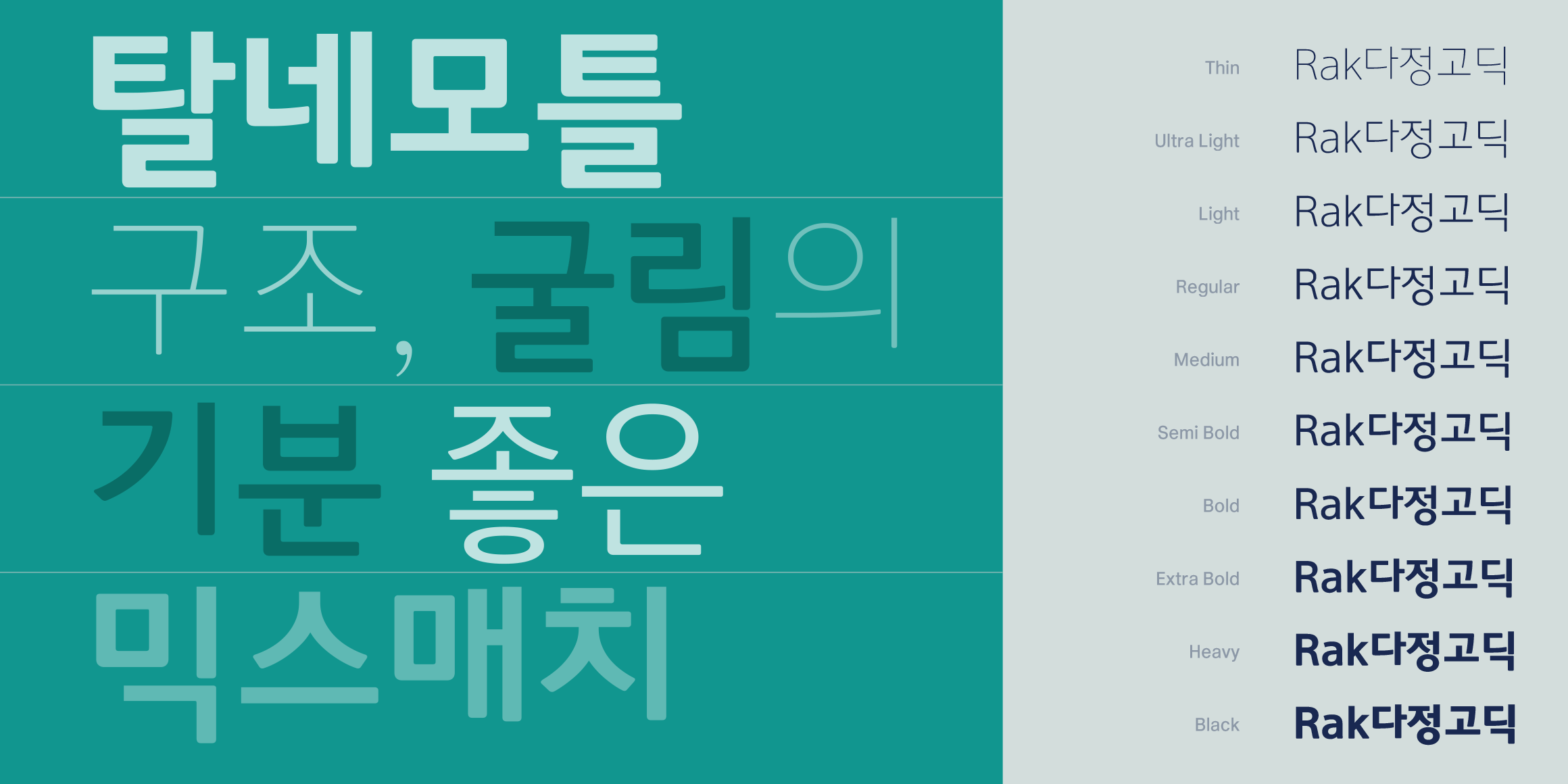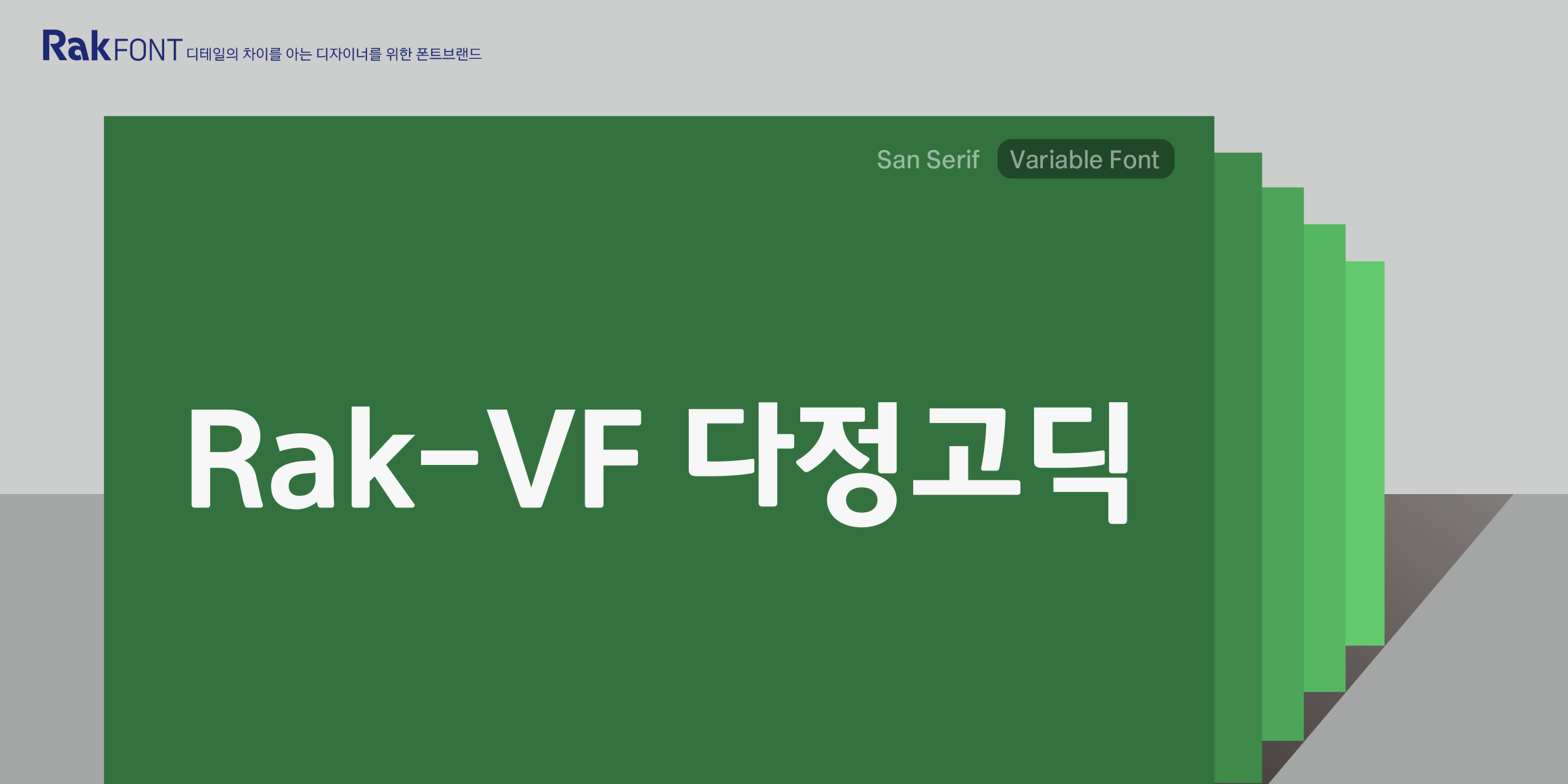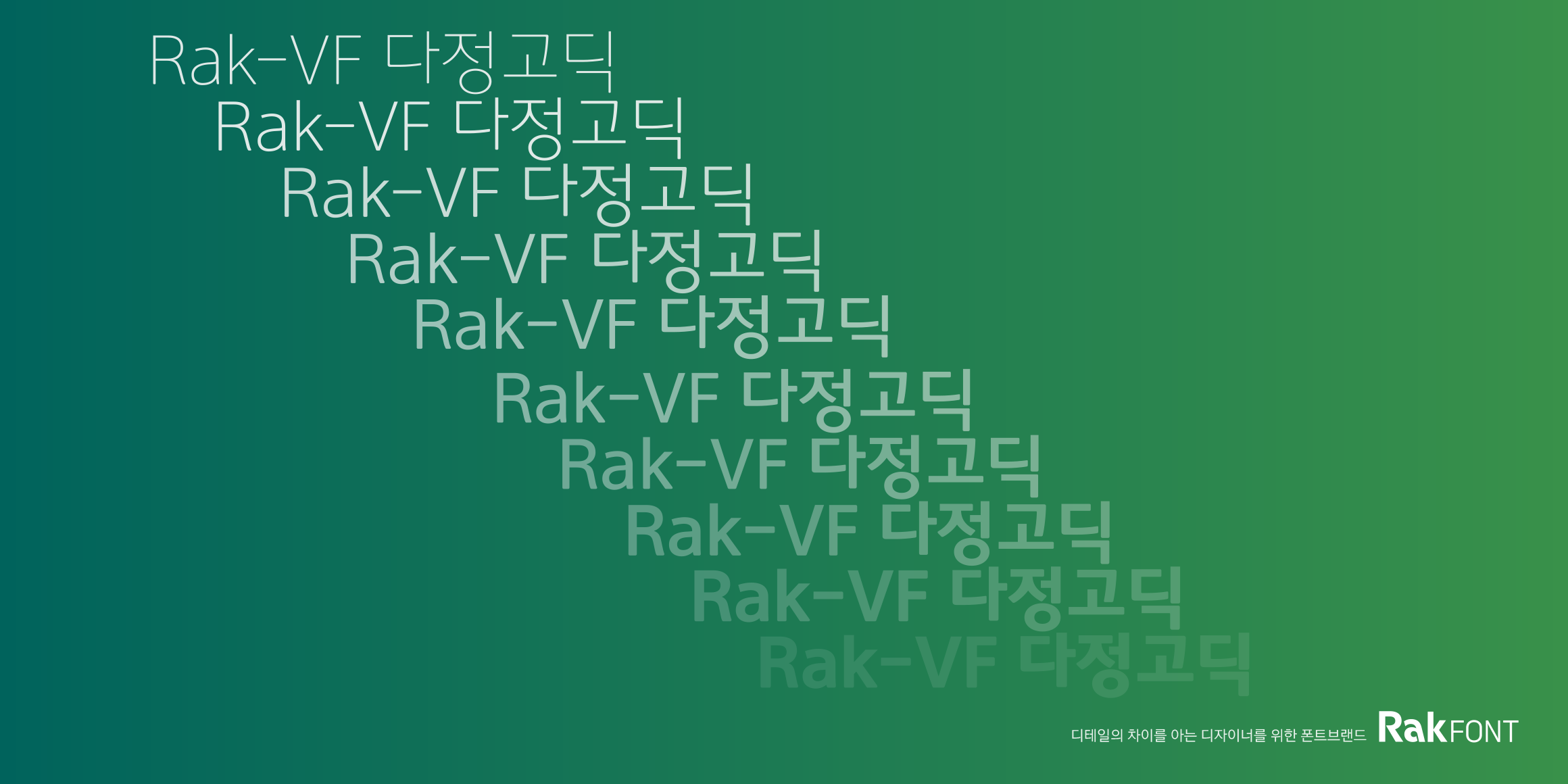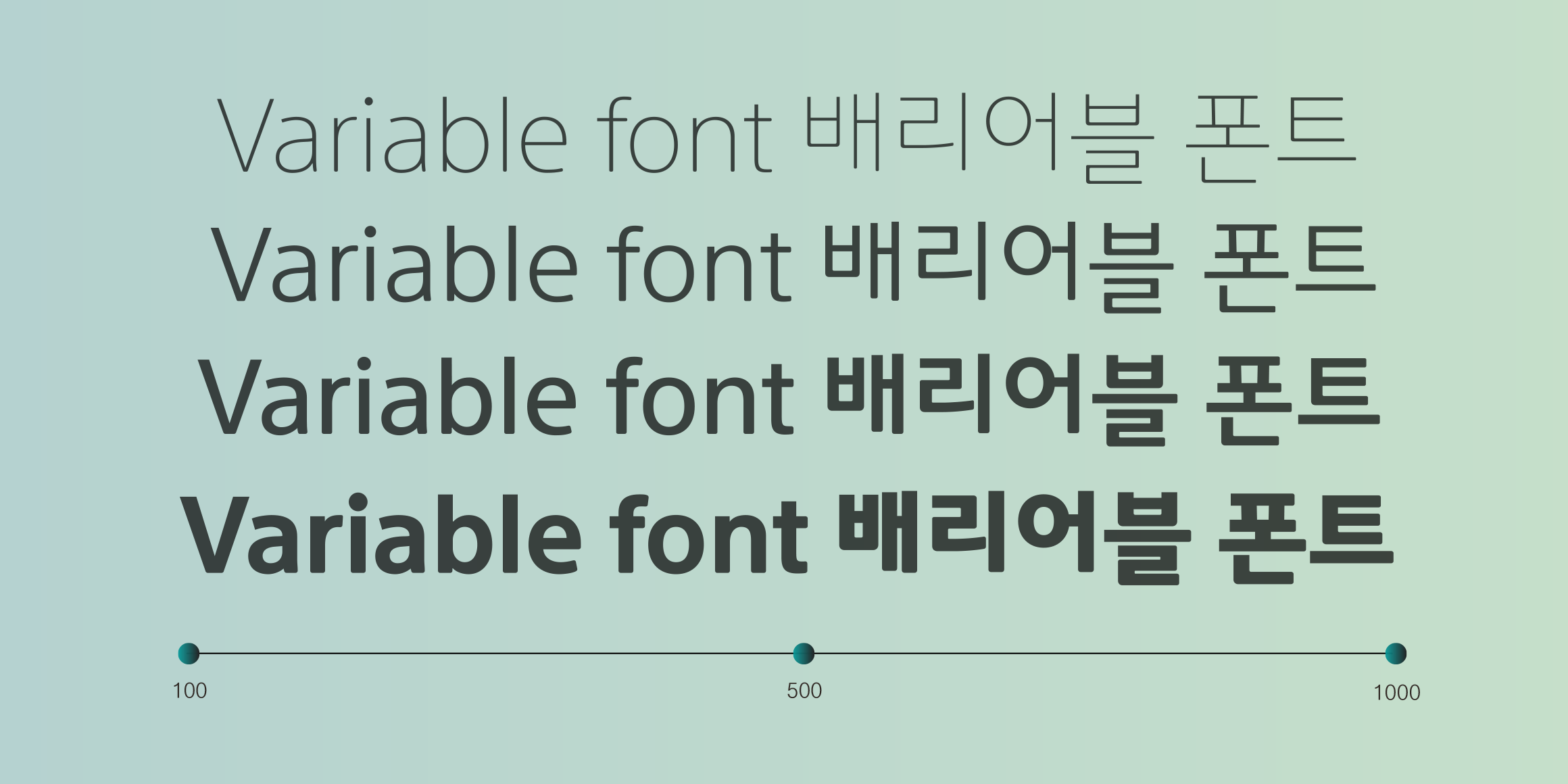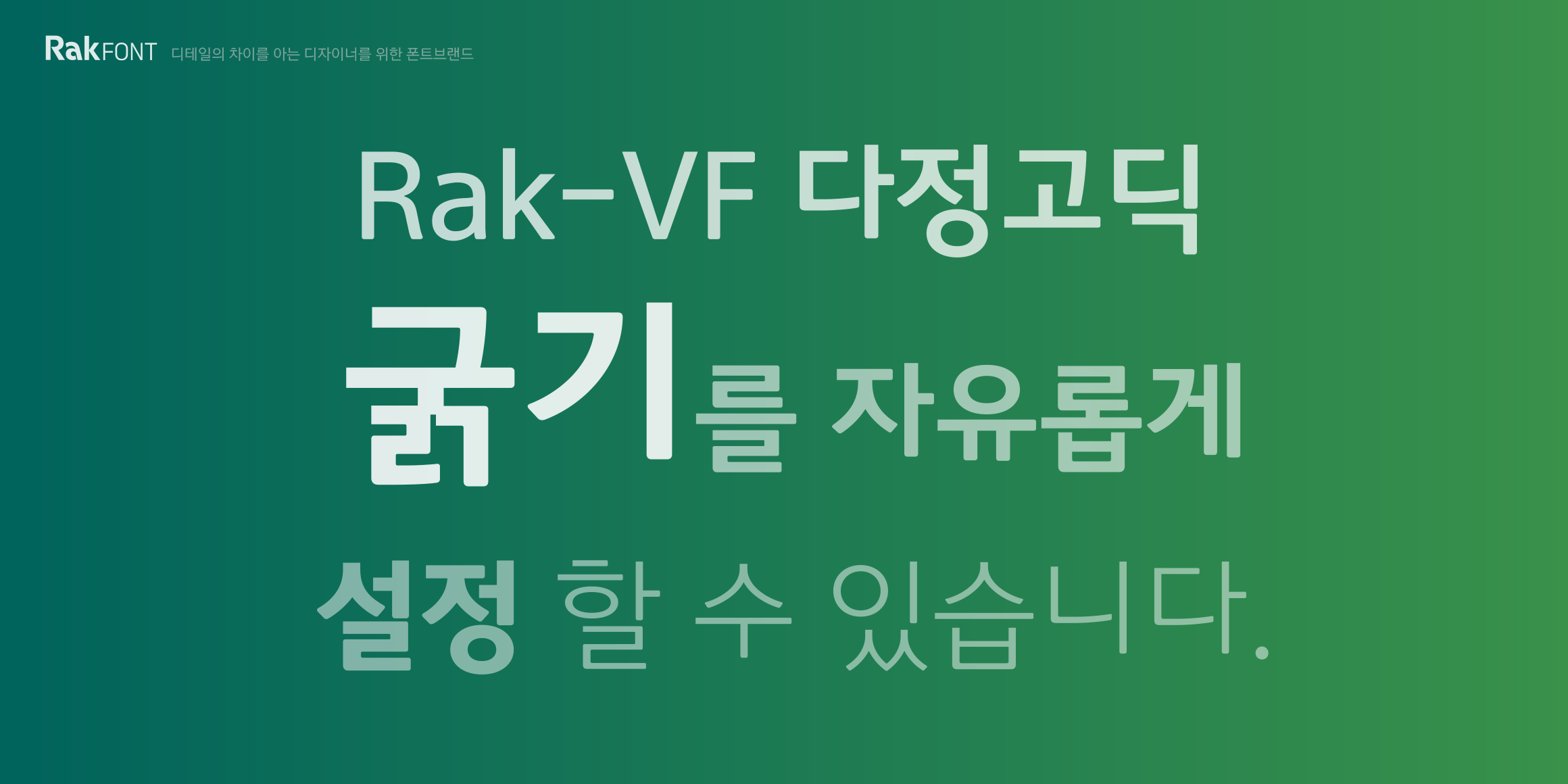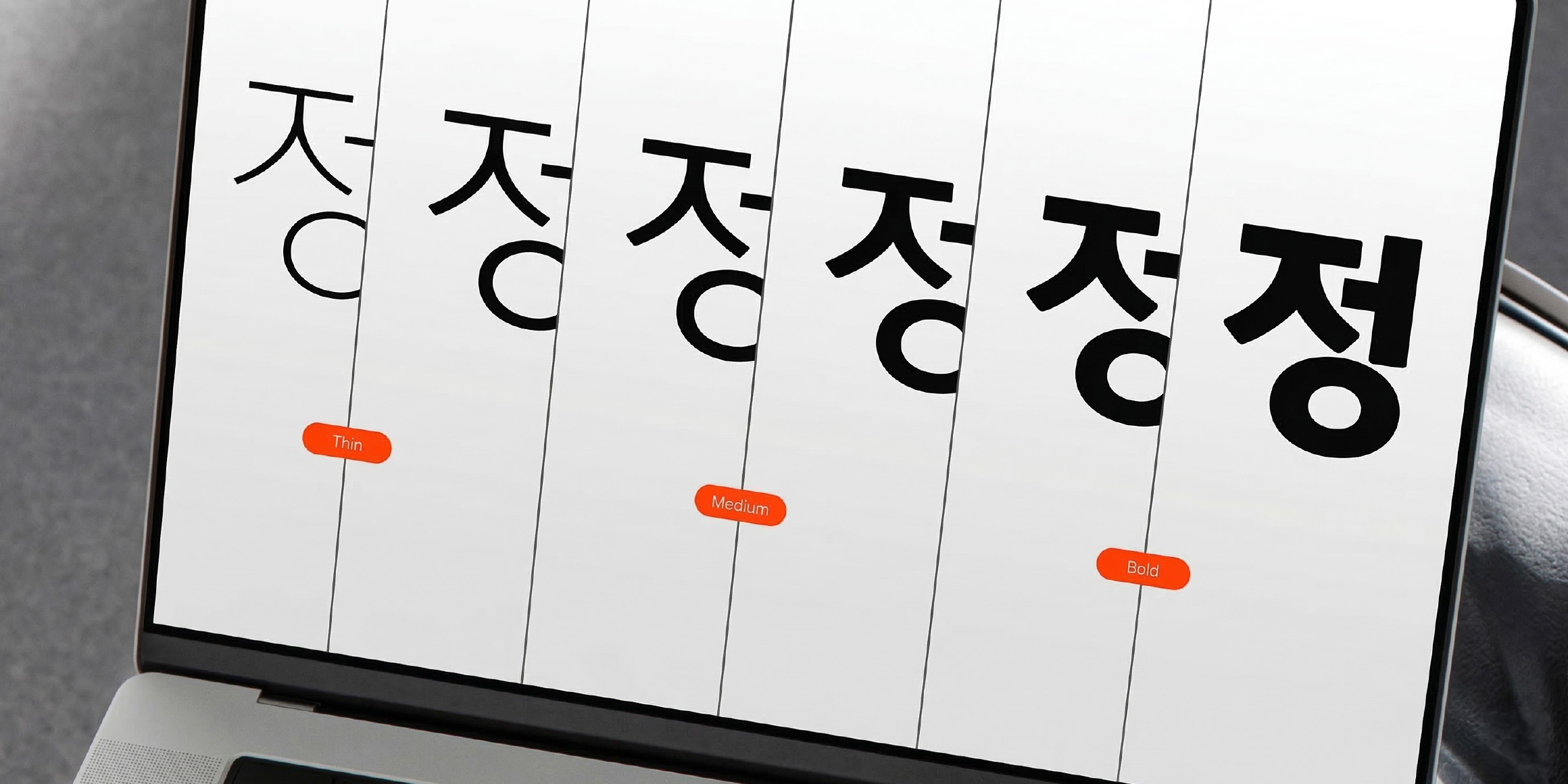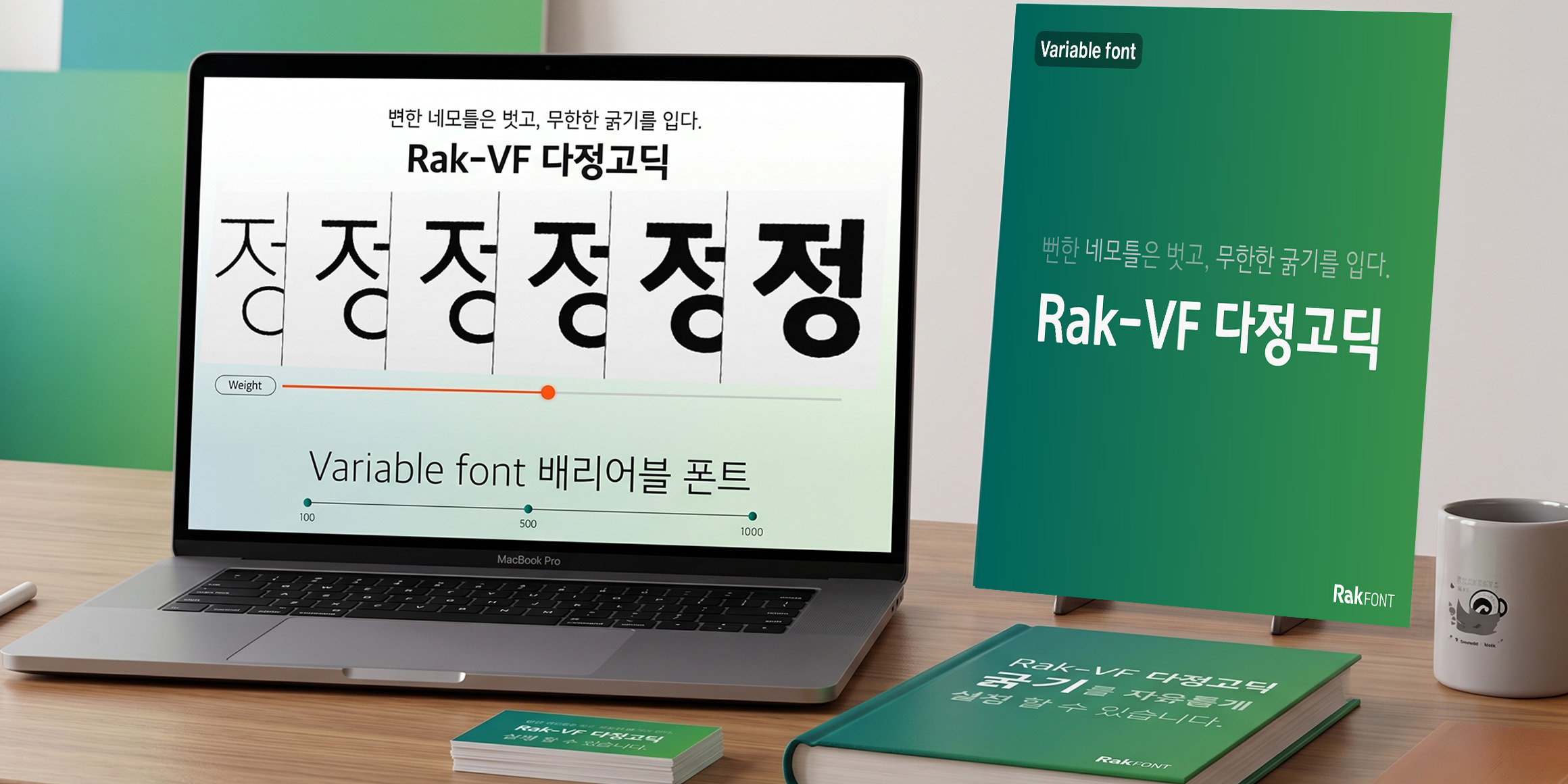
Variable
Infinitely customize the weight of Rak Dajeong Gothic, a typeface that possesses a youthful and trendy aesthetic. It is the optimal variable font for professionals seeking to elevate the perfection of their work through fine and precise weight adjustments.
- Rak-VF 다정고딕 / Rak-VF DajungGo